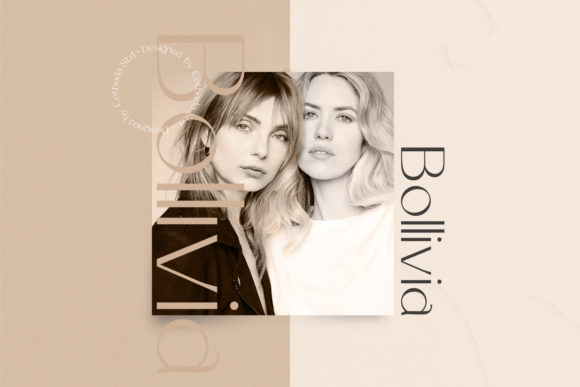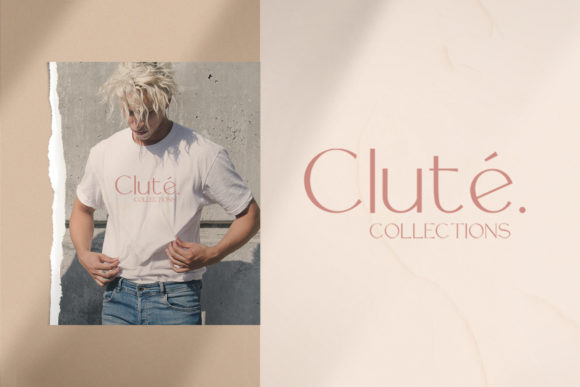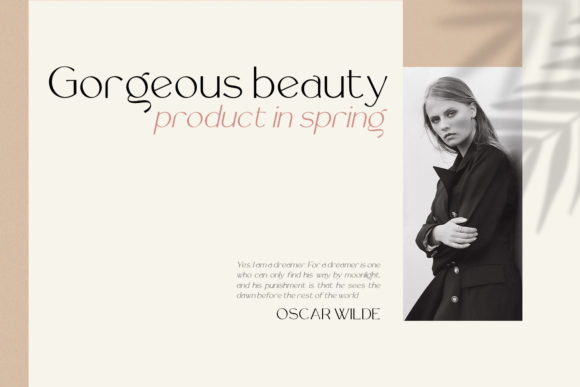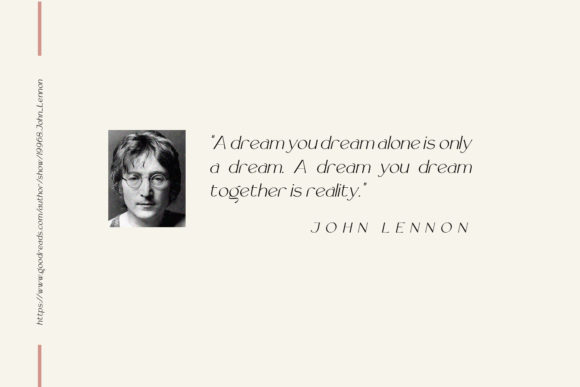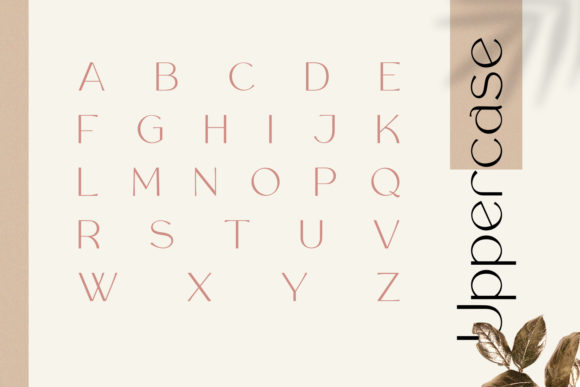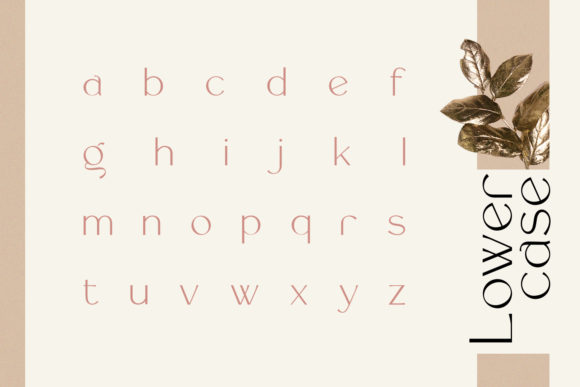
Introduction to Rollgates Font
Have you ever been working on a creative project, pouring your heart and soul into it, only to realize that the perfect font is missing? This has happened to all of us, and it’s frustrating. But what if I told you that I recently stumbled upon a stunning display font that has been a game-changer for me? Say hello to Rollgates Font, a gorgeous and high-quality font that perfectly merges sophistication and style.
| 👤 Author | Cotbada Studio |
With its sleek design and transparent background, Rollgates Font is a valuable resource for designers looking to elevate their work. Whether you’re working on a logo, a poster, or a website, this font is sure to make your design stand out. And the best part? It’s available for free download, making it an accessible design resource for creatives of all levels.
Key Features of Rollgates Font
- High-quality font with a unique, creative design perfect for various projects
- Transparent background, making it easy to use with any image or design
- Includes a comprehensive character set with over 1000 glyphs, ideal for international languages
- High-resolution design, suitable for print and digital applications at 300 DPI and above
- Perfect for creative projects, such as branding, logos, and typography-based designs
Honest Review: Rollgates Font
As a designer, I’ve had the opportunity to work with a wide range of fonts, but I wanted to share my thoughts on the Rollgates Font. I’ve been using it for a creative project, and I have to say, it’s been a game-changer.
- High-quality design: The Rollgates Font has a crisp, clean aesthetic that makes it perfect for a variety of design projects.
- Transparent background: This feature allows for seamless integration with any background, making it a versatile design resource.
- Limited character set: The Rollgates Font has a relatively limited character set, which may not be ideal for projects that require a wide range of characters.
- Lack of bold weight: I found that the font’s bold weight is not as robust as I would have liked, which may affect its readability in certain contexts.
Overall, I’m impressed with the Rollgates Font, and I would definitely recommend it to designers looking for a high-quality, free design resource. While it may have some limitations, I think it’s a great addition to any design toolbox.
Tips for Getting the Most Out of Rollgates Font
Use the Rollgates Font for headings, titles, and body text. Experiment with different font sizes and styles to get the best results. You can also use the font in combination with other design elements to create a unique and creative project.
The Rollgates Font is perfect for creative projects such as brochures, flyers, and business cards. It’s also great for web design, social media graphics, and presentations. With its high-quality design and transparent background, the Rollgates Font is a valuable design resource for any creative project.